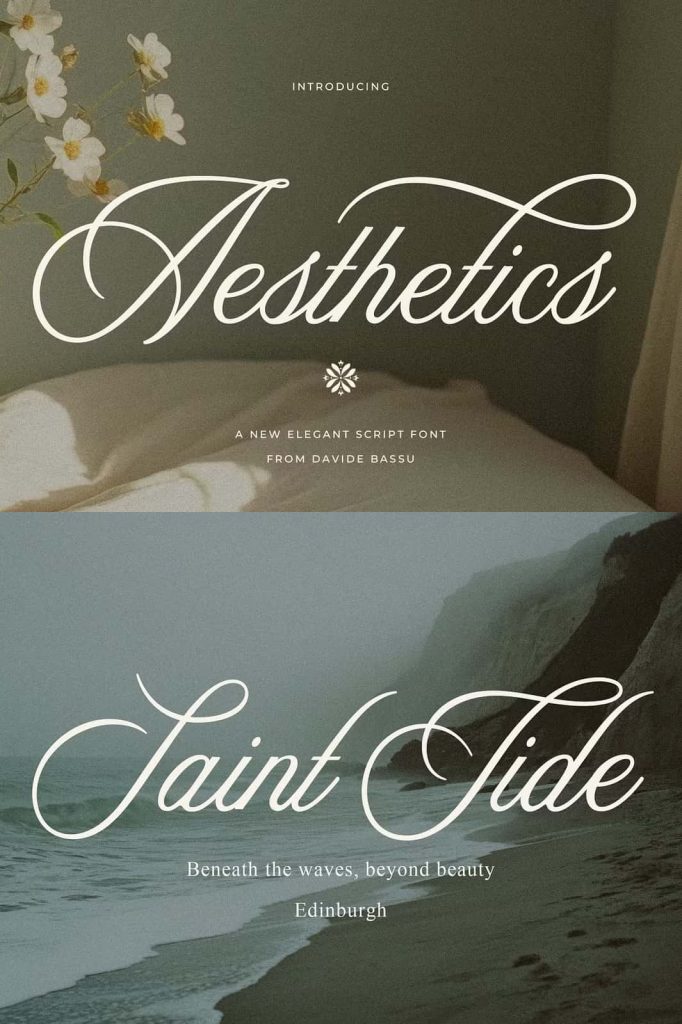
Aesthetics is a romantic and timeless script font. With its flowing curves and delicate details, it’s perfect for branding, wedding invitations, packaging, apparel, and more.
Featuring over 100 stylistic alternates, Aesthetics allows you to create truly unique and expressive typography. Its OpenType features provide seamless customization to fit any design vision.